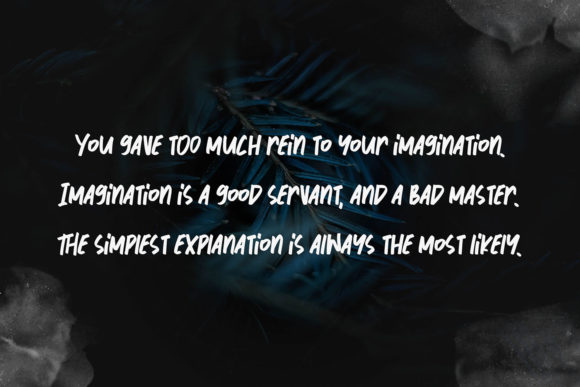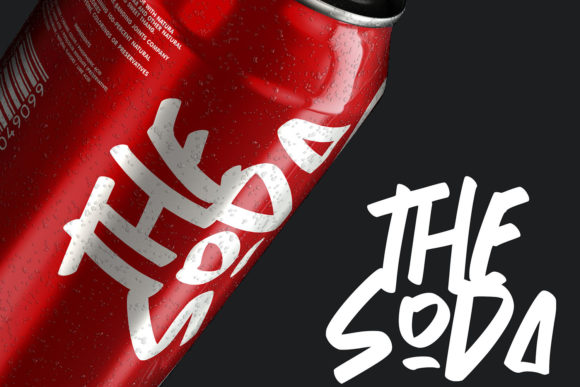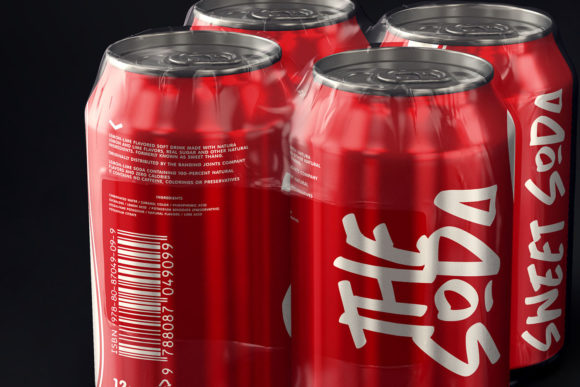
About Motion Therapy Font
Motion Therapy is a simple and quirky handwritten font. It will add an incredibly joyful touch to your designs. Add this beautiful display font to each of your creative ideas and notice how it makes them stand out!